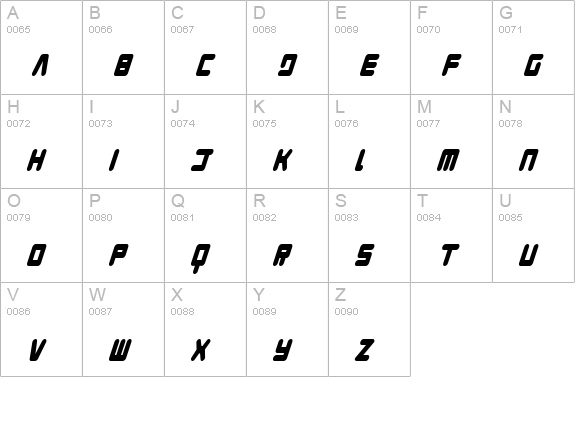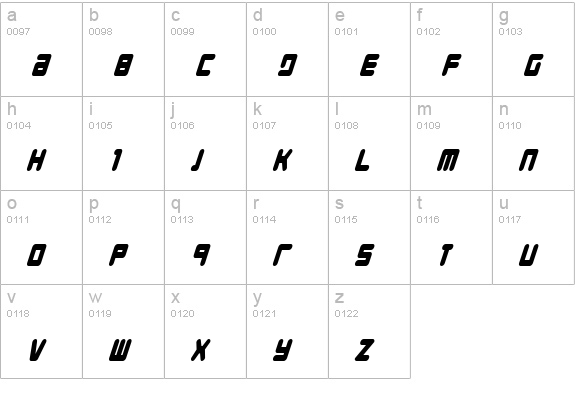
Young Techs Condensed Italic Font Details
Young Techs Condensed Italic is a distinctive, condensed-width, italic variant in the Young typeface family \xE2\x80\x94 well suited to design and typography projects.
Introducing Young Techs Condensed Italic font – a sleek and modern typeface designed for tech-savvy individuals looking to make a bold statement. This font features a condensed style with a touch of elegance, perfect for adding a contemporary edge to your projects. With its sharp angles and subtle curves, Young Techs Condensed Italic font is ideal for branding, web design, and digital content creation. Whether you're working on a tech startup, designing a website, or creating social media graphics, this font will give your work a futuristic and sophisticated look. Best of all, Young Techs Condensed Italic font is available for free download at FontsMarket.com. Take your design projects to the next level with this versatile and stylish font that is sure to impress. Download it today and elevate your designs with the sleek and modern look of Young Techs Condensed Italic font.